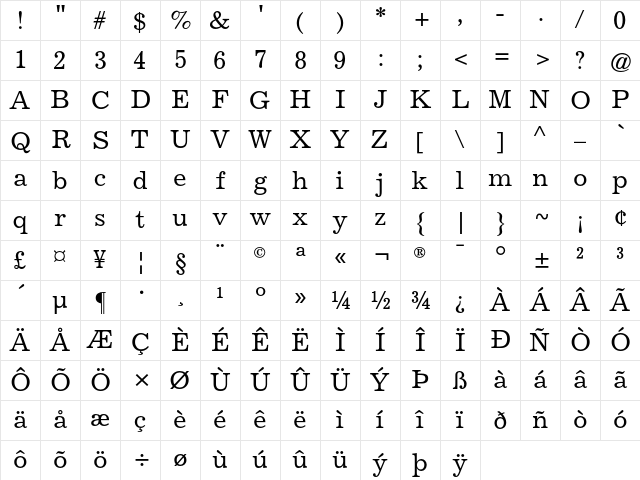
Complete News AT Number Fourteen Regular glyph index. Displaying only characters natively supported by News AT Number Fourteen Regular font.
News AT Number Fourteen is a composed and adaptable typeface that performs quietly and consistently across a wide range of design contexts.